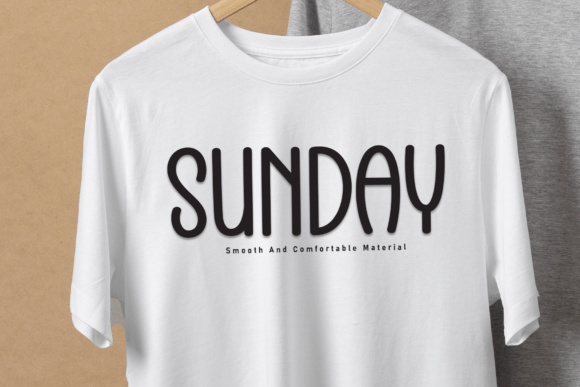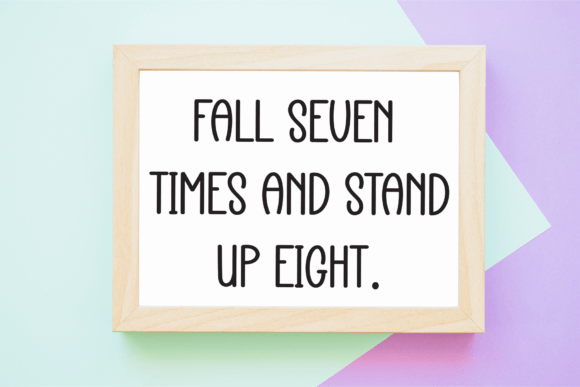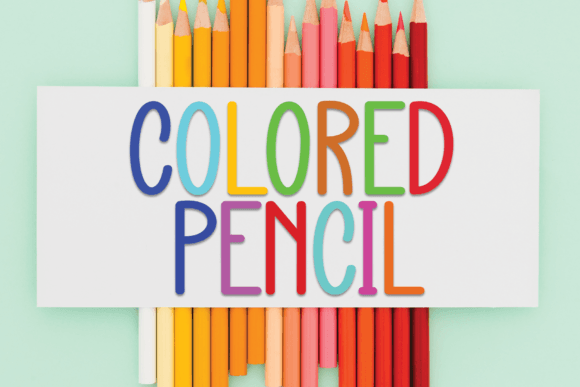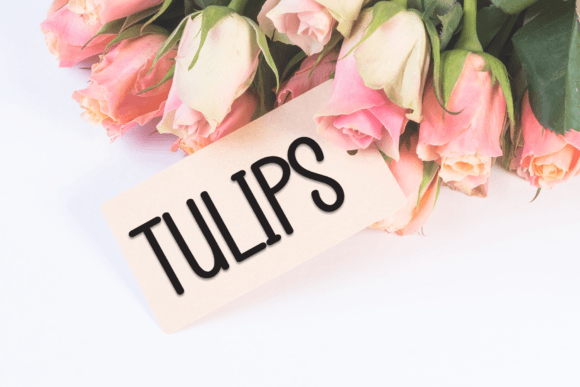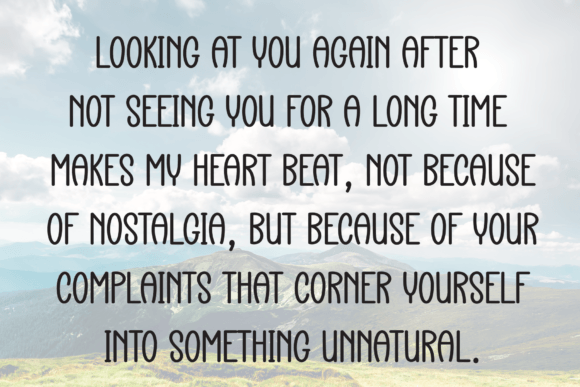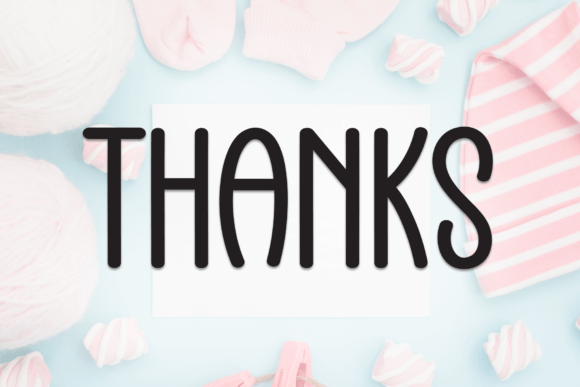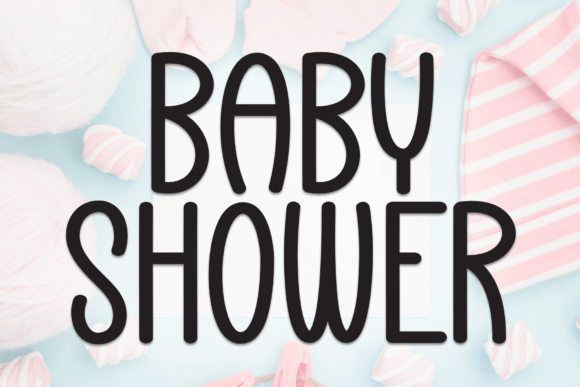
Baby Shower Font: The Sweet and Friendly Handwritten Font for Your Designs
Baby Shower Font is a delightful and charming handwritten font that has captured the hearts of designers and crafters alike. Its natural and unique style makes it incredibly fitting for a wide range of designs, from baby shower invitations and decorations to nursery art and greeting cards. With Baby Shower Font, the only limit is your imagination!
What Makes Baby Shower Font So Special?
Baby Shower Font is a sweet and friendly handwritten font that exudes warmth and playfulness. Its unique style is reminiscent of handwritten notes and letters, making it perfect for designs that require a personal touch. The font’s natural and effortless look makes it easy to pair with other fonts and design elements, allowing you to create stunning and cohesive designs.
Characteristics of Baby Shower Font
Baby Shower Font has several characteristics that make it a standout font:
- Handwritten style: Baby Shower Font is a handwritten font that mimics the natural flow of handwriting, making it perfect for designs that require a personal touch.
- Unique and distinctive: The font’s unique style sets it apart from other fonts, making it ideal for designers who want to create distinctive and eye-catching designs.
- Natural and effortless: Baby Shower Font has a natural and effortless look that makes it easy to pair with other fonts and design elements.
- Playful and whimsical: The font’s playful and whimsical style makes it perfect for designs that require a touch of fun and personality.
Uses for Baby Shower Font
Baby Shower Font is a versatile font that can be used for a wide range of designs, including:
- Baby shower invitations: Create adorable and eye-catching invitations for baby showers, complete with cute graphics and decorations.
- Nursery art: Use Baby Shower Font to create beautiful and personalized nursery art, including wall decals, banners, and mobiles.
- Greeting cards: Add a personal touch to greeting cards for new parents, baby birthdays, and other special occasions.
- Decorations: Use Baby Shower Font to create decorations for baby showers, including banners, garlands, and centerpieces.
Tips for Using Baby Shower Font
Here are some tips for using Baby Shower Font in your designs:
- Pair with other fonts: Pair Baby Shower Font with other fonts to create interesting and dynamic designs.
- Add graphics and illustrations: Add cute graphics and illustrations to your designs to make them more visually appealing.
- Experiment with colors: Experiment with different colors and color combinations to find the perfect look for your design.
- Keep it simple: Don’t be afraid to keep your design simple and elegant, using Baby Shower Font as the focal point.
Baby Shower Font is a sweet and friendly handwritten font that is perfect for designers and crafters who want to create unique and eye-catching designs. Its natural and effortless style makes it incredibly fitting for a wide range of designs, from baby shower invitations and decorations to nursery art and greeting cards. With Baby Shower Font, the only limit is your imagination!